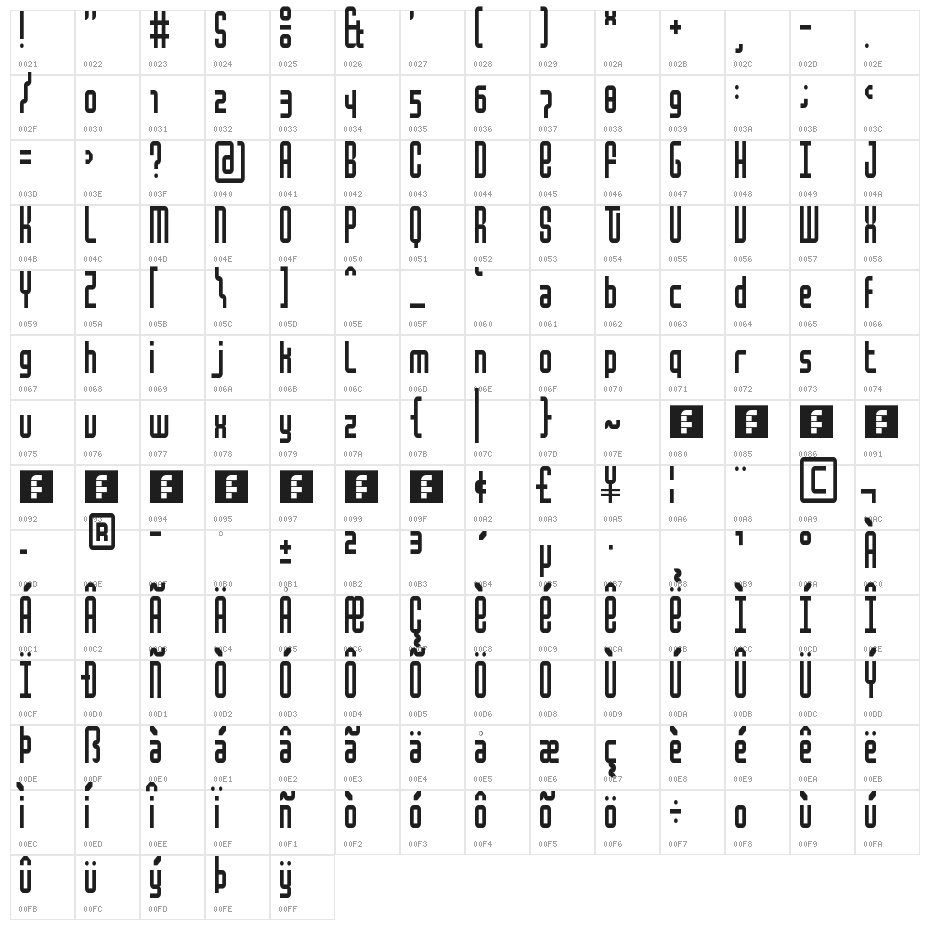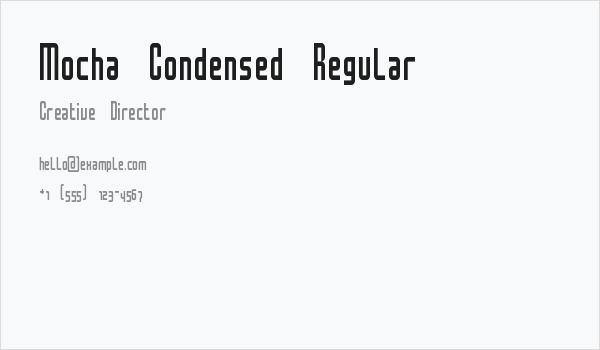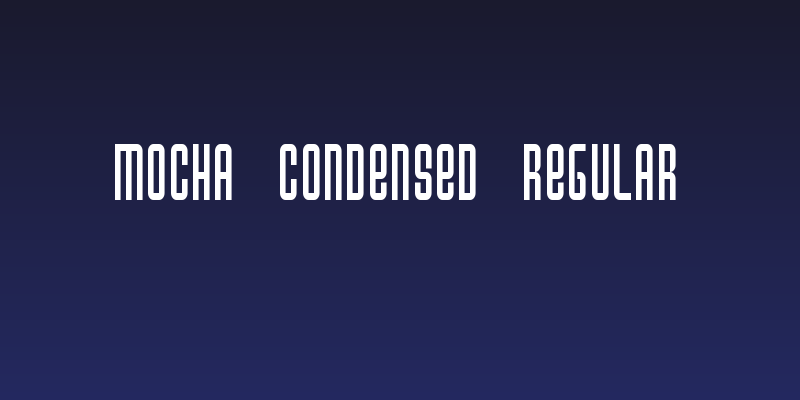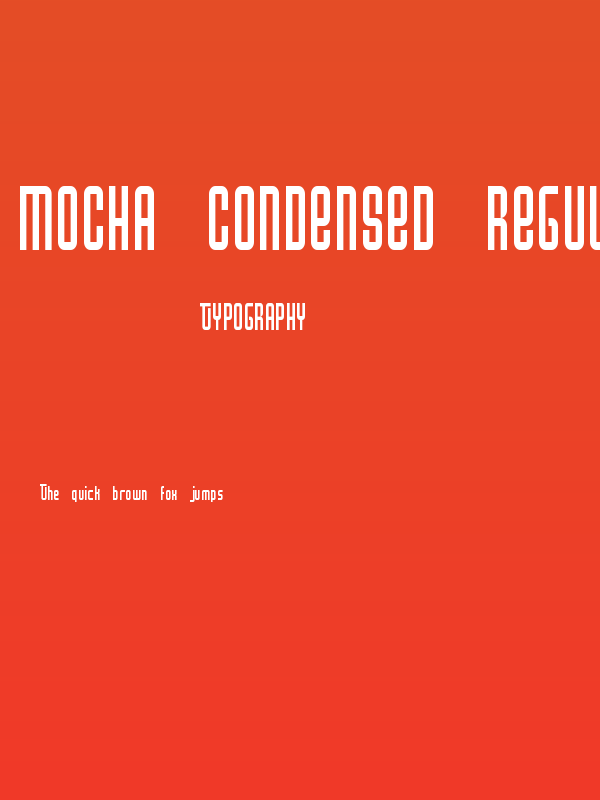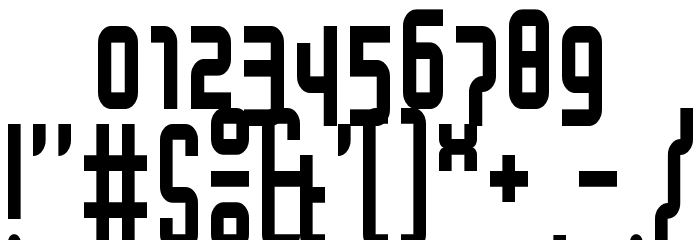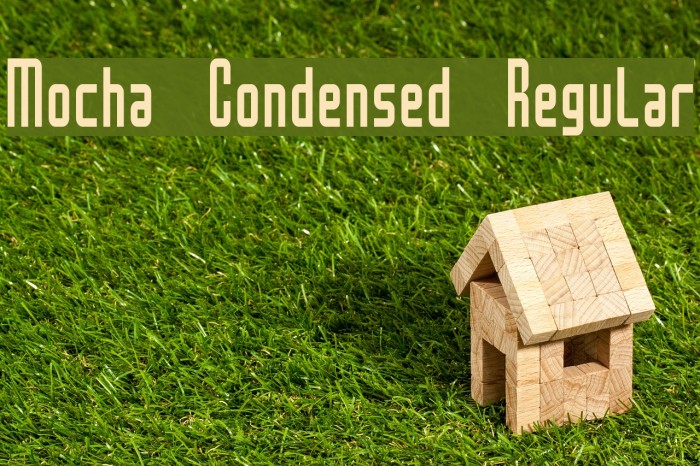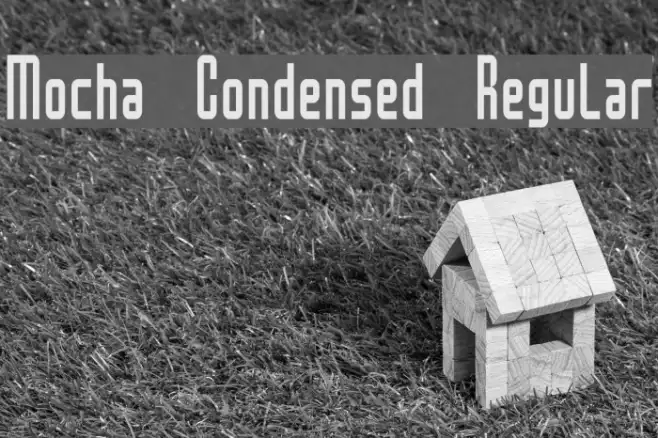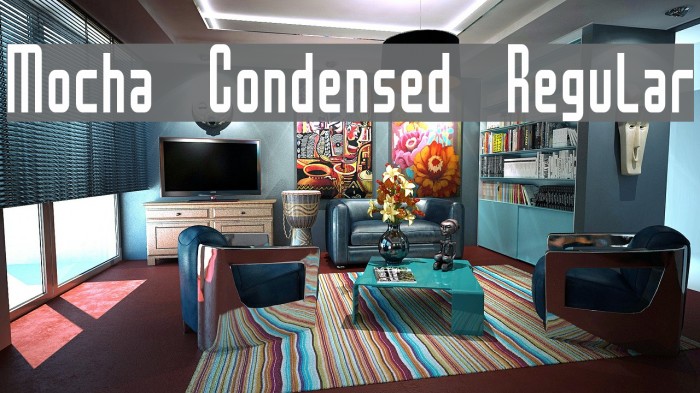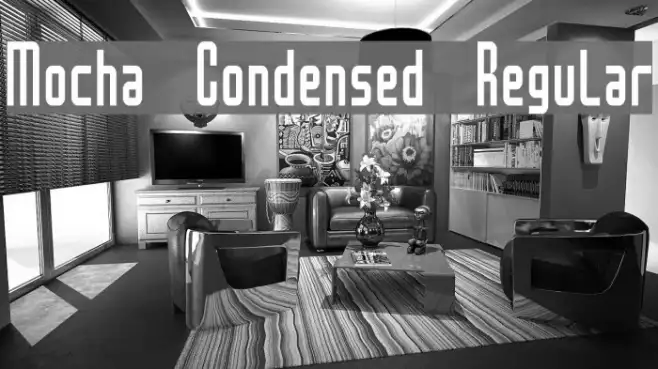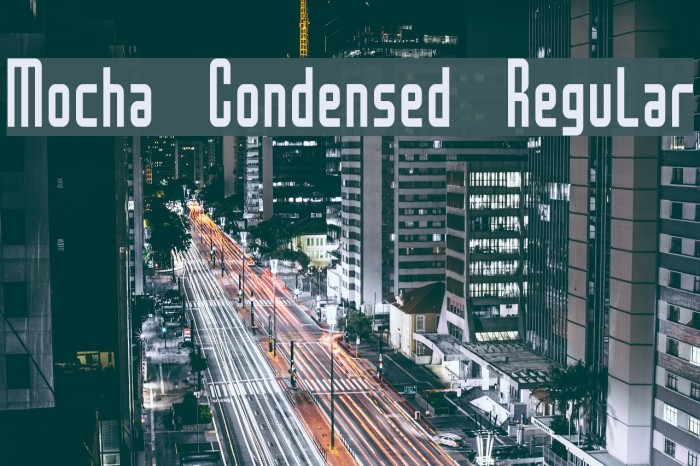
Mocha Condensed Regular Font
Mocha Condensed Regular Description
This font features a geometric and condensed style, characterized by its blocky and uniform letterforms. The uppercase and lowercase letters maintain a consistent height, contributing to a cohesive and structured appearance. The font's design is modern and minimalistic, with a focus on clarity and readability. The numerals and special characters follow the same geometric principles, ensuring a seamless integration with the alphabetic characters. The overall aesthetic is bold and impactful, making it suitable for attention-grabbing designs.